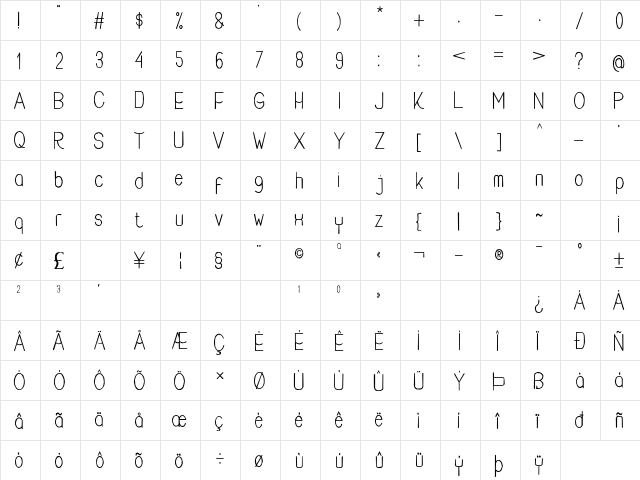
Buon Umore Rough Regular
Design Context for Buon Umore Rough Typeface
Buon Umore Rough embraces imperfection — its rough, textured character adds raw authenticity to designs that want to feel lived-in and unconventional.
Suited to punk-influenced zines, underground music branding, streetwear, and raw, anti-corporate design.